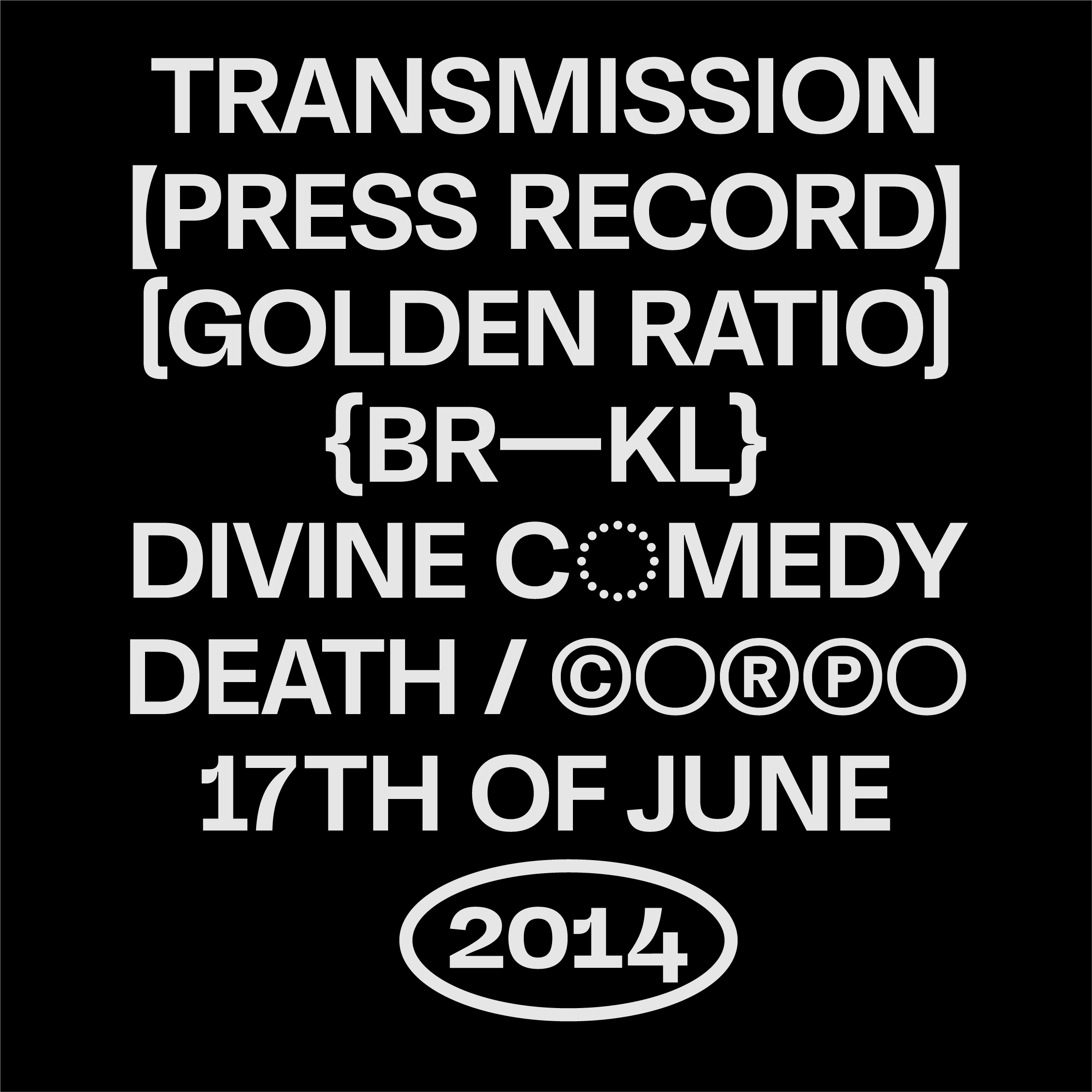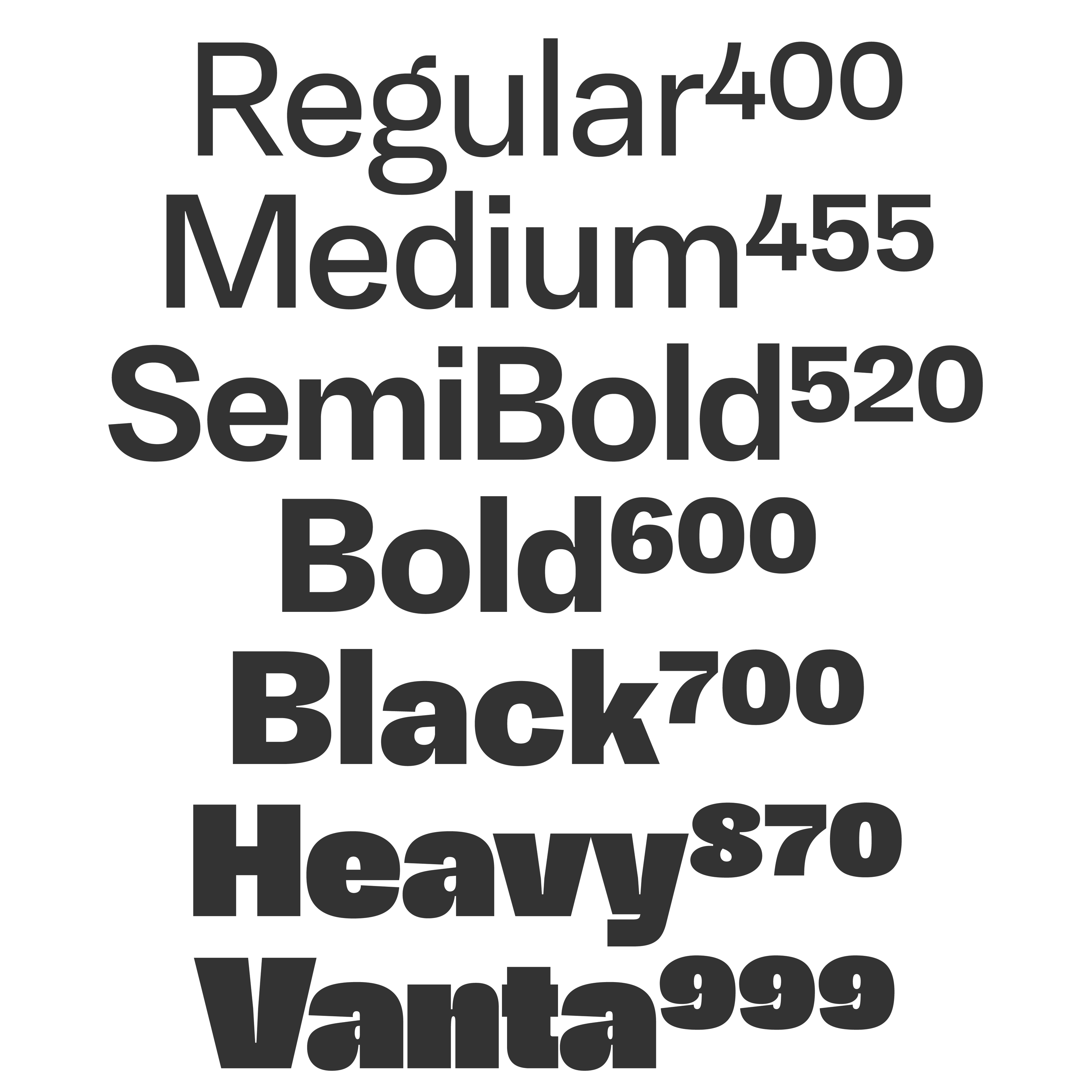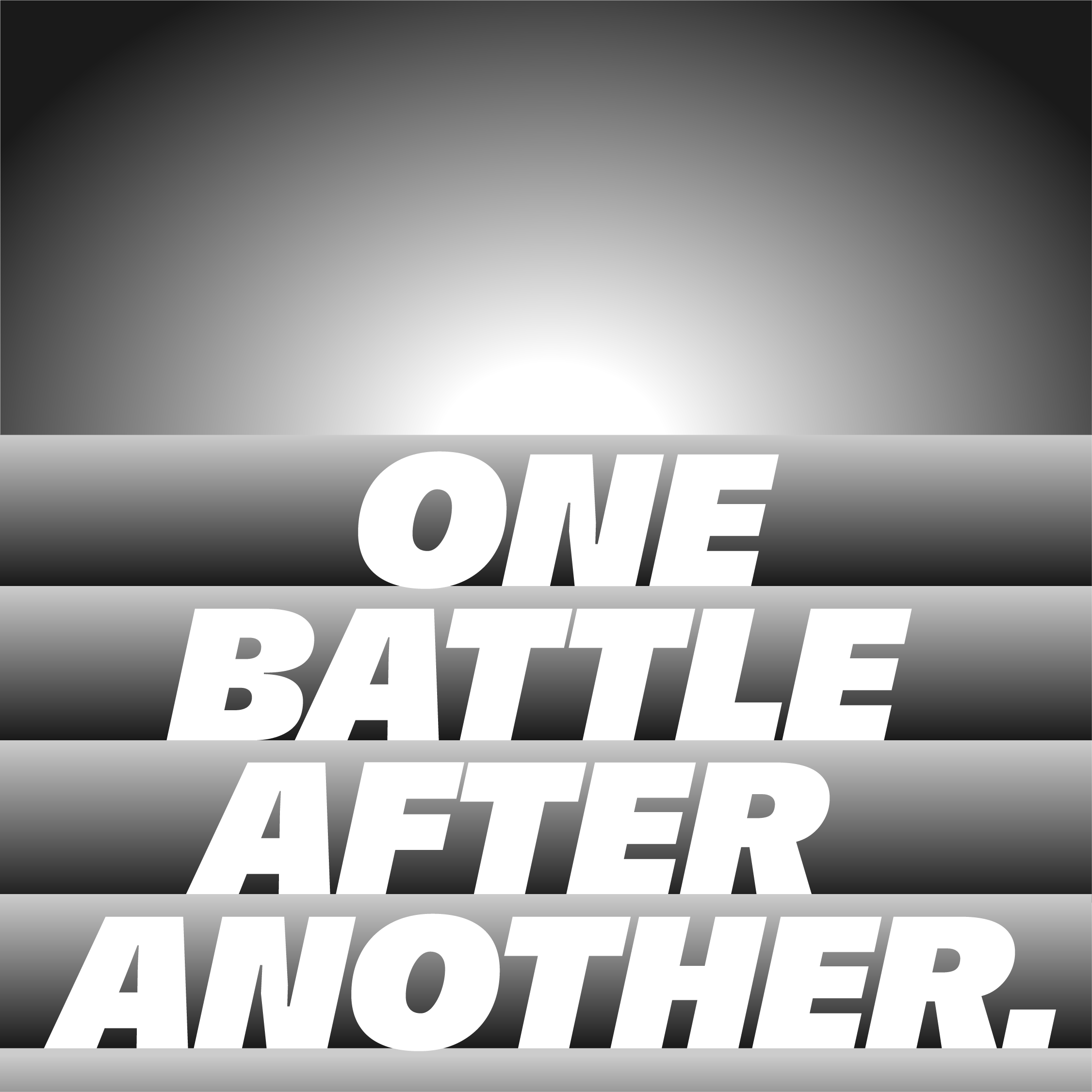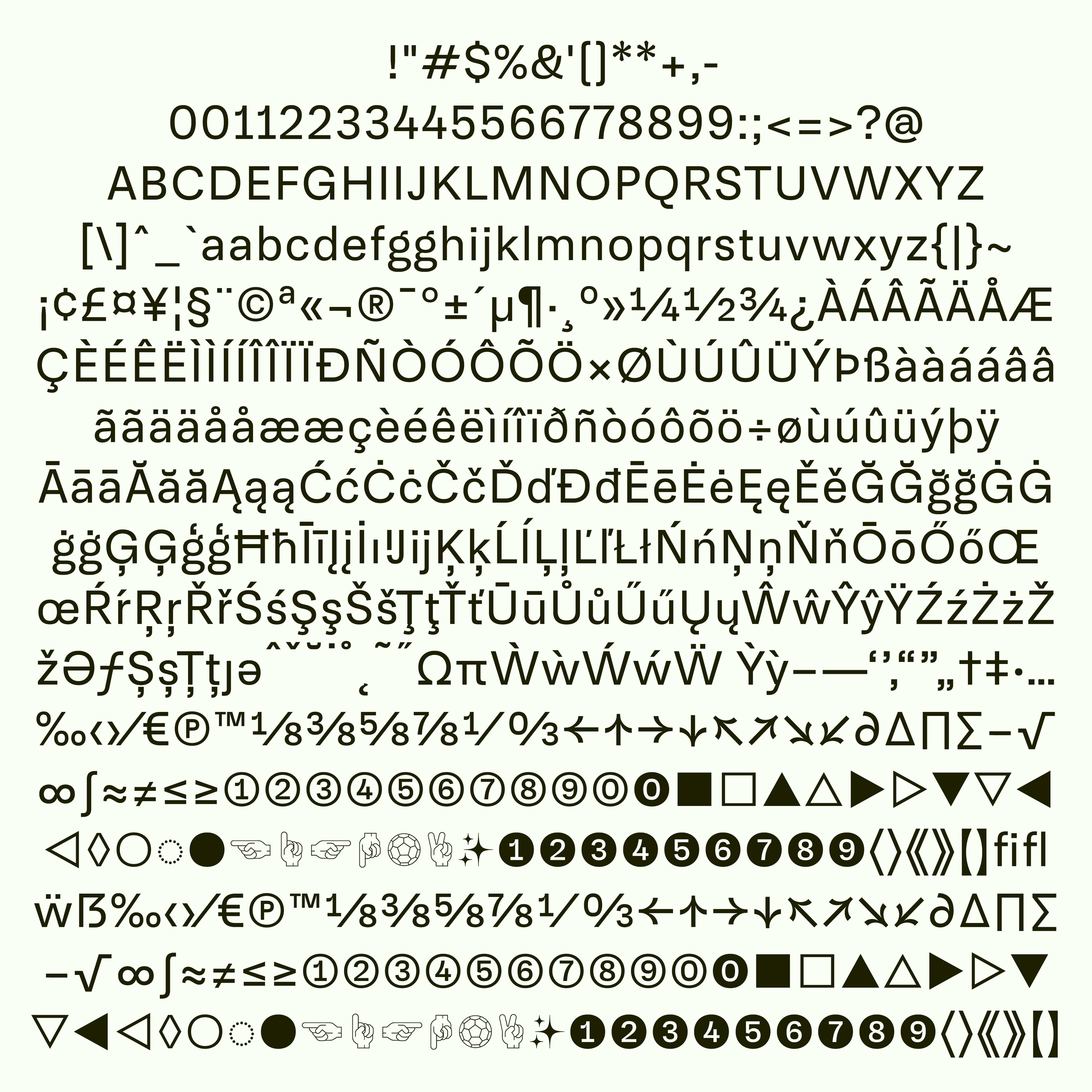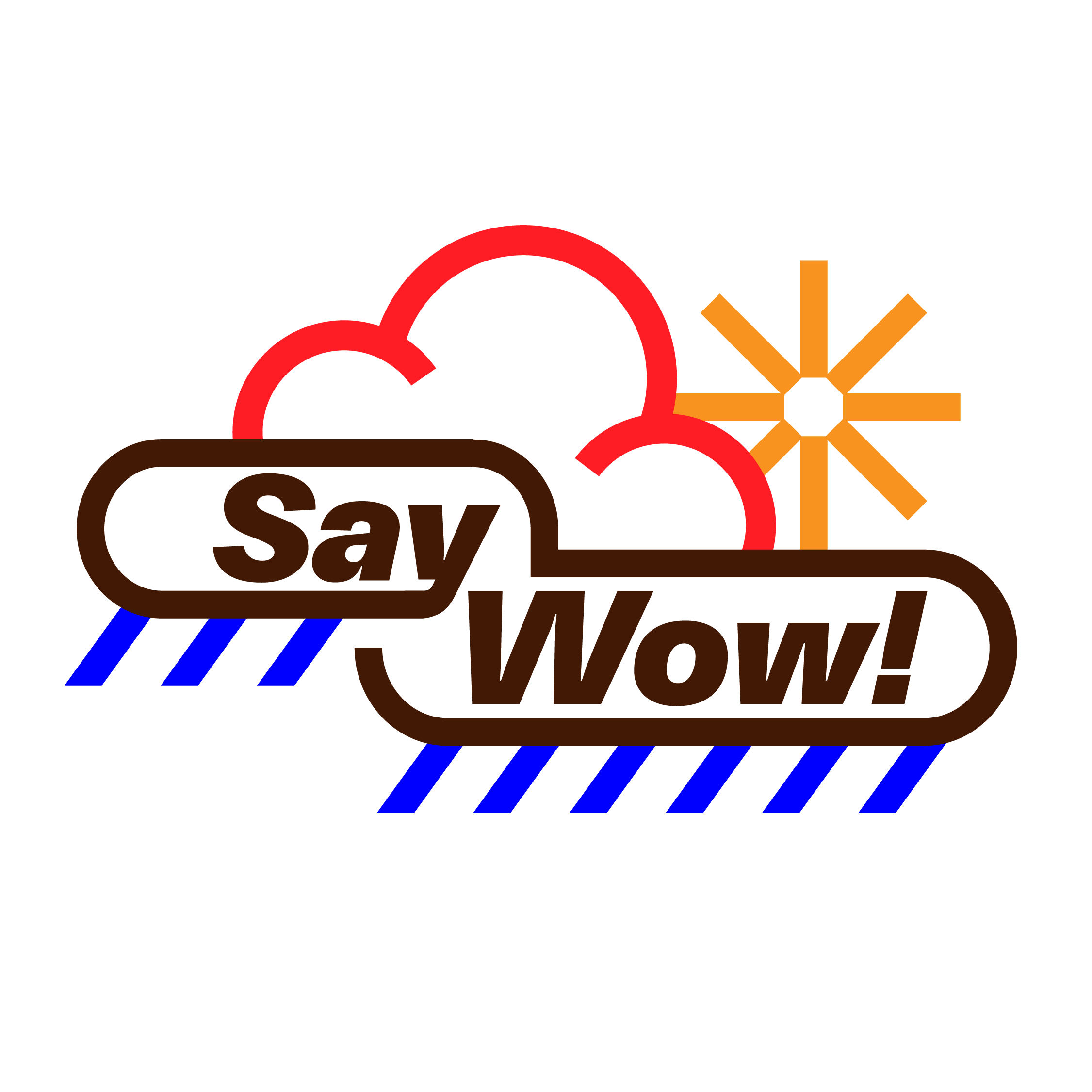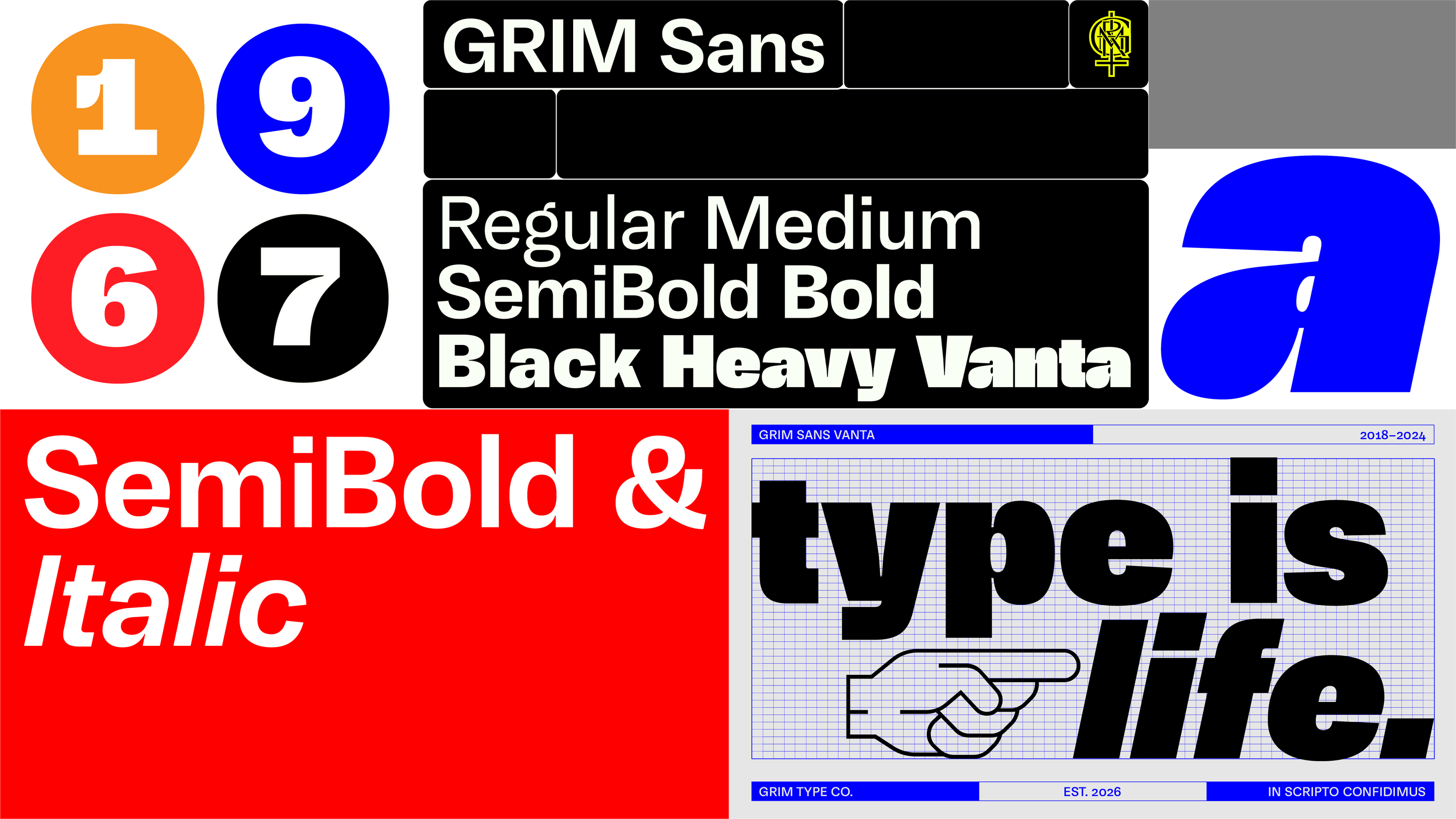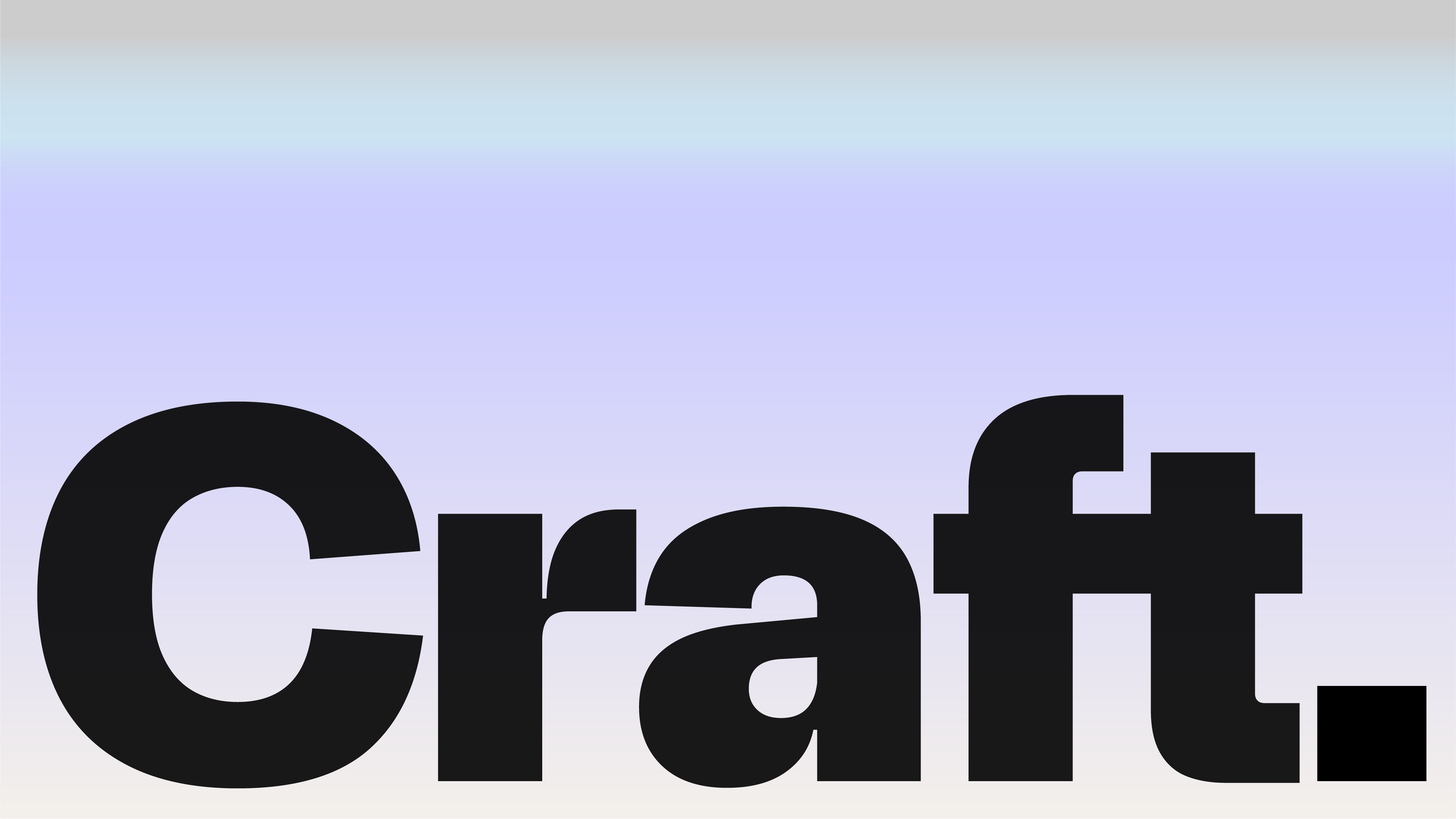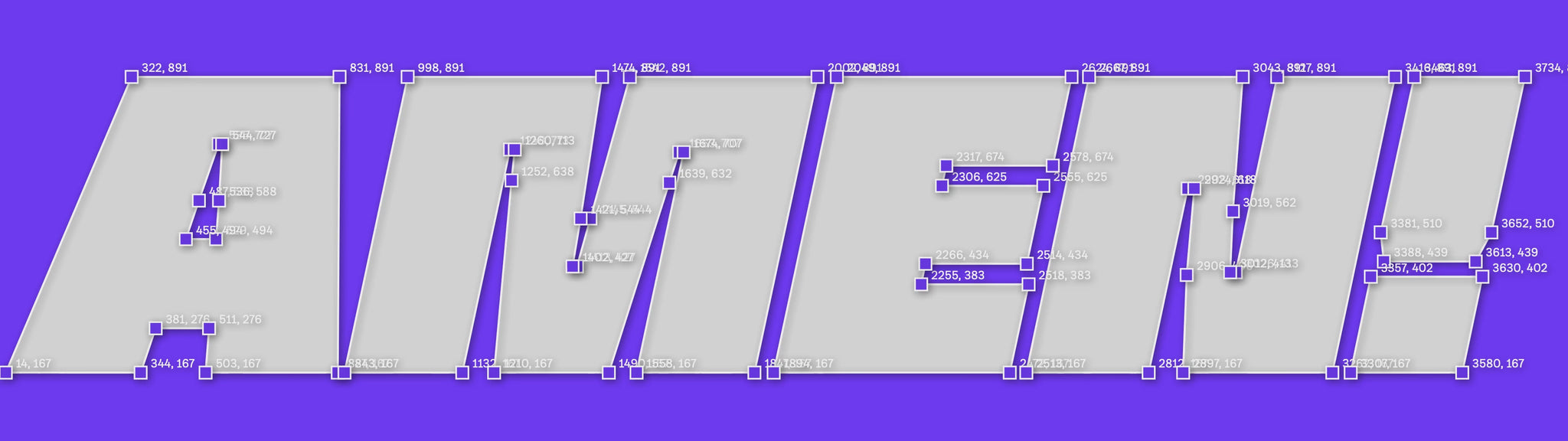
GRIM Sans
»I can’t help it. I just love — L O V E — looking at GRIM Sans.«
— Erotik Speedoman
GRIM Sans
Straight from the steamy engine bowel of GRIM Type Co. comes this crazy sexy stupid grotesque! More decisive than its countless competitors, you can achieve a clean or a wild corporate look. GRIM Sans is durably friendly but also useable for light tasks! It can be corporate or cool, business or casual, depending on the use. GRIM Sans has an unusually wide range of weights that reaches deep into pitch blackness with the Vanta styles.
It is the Sans but WITH something. If Helvetica is bread, GRIM Sans is garlic bread!